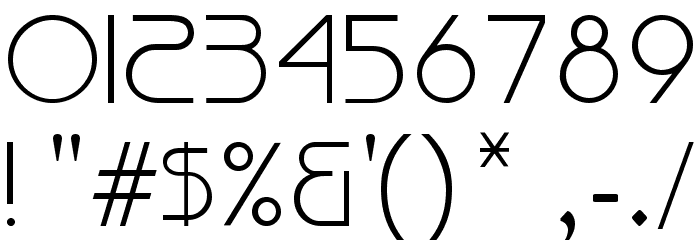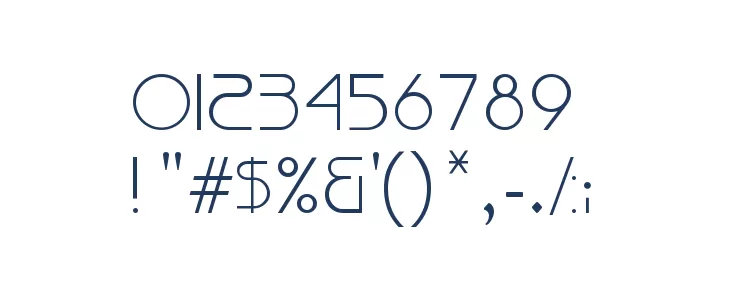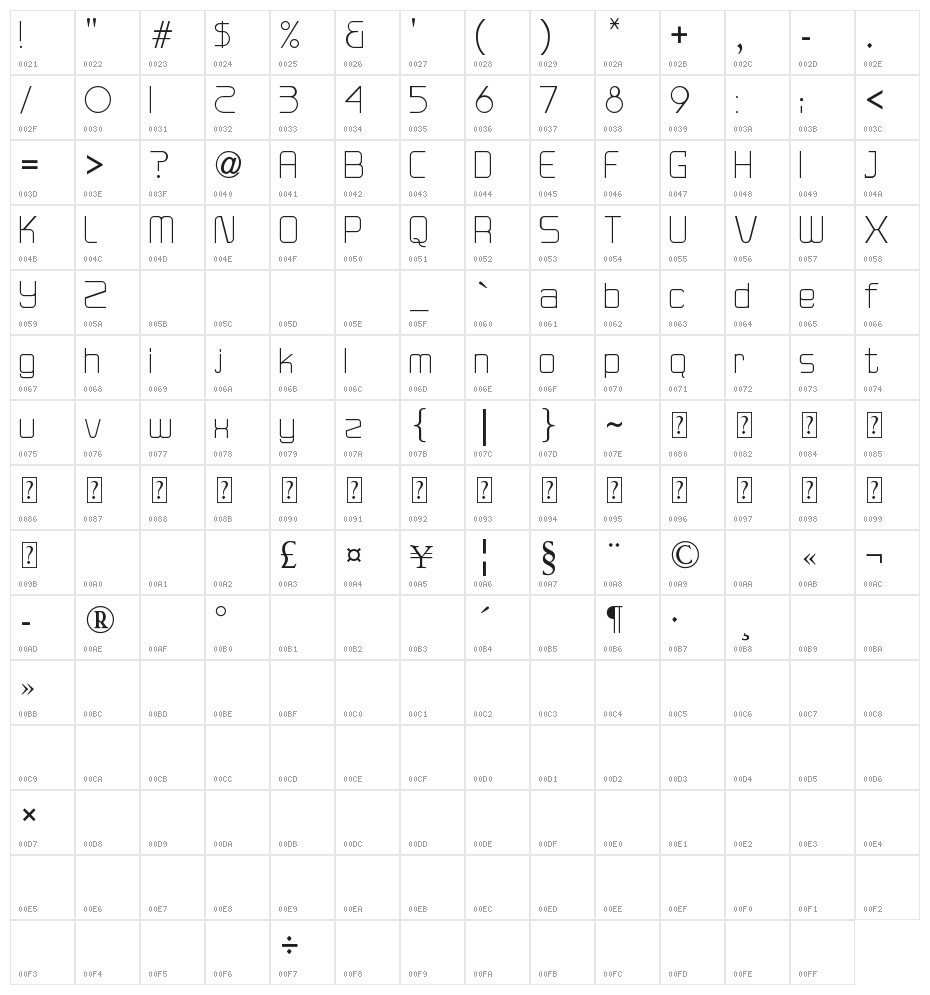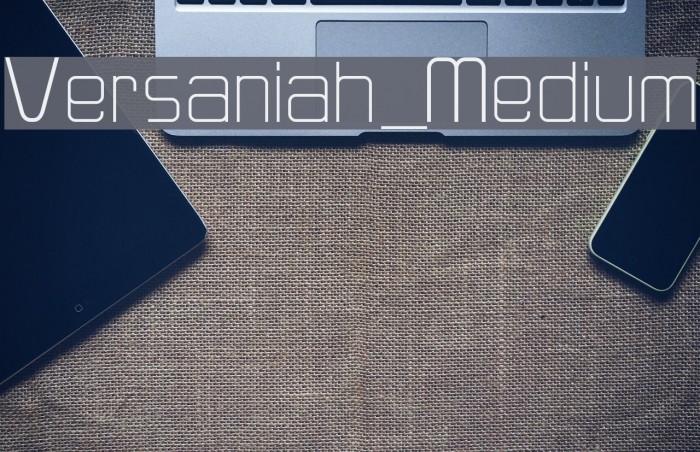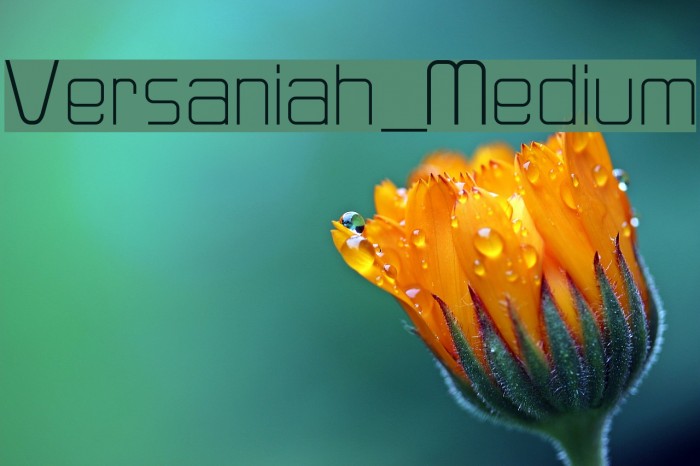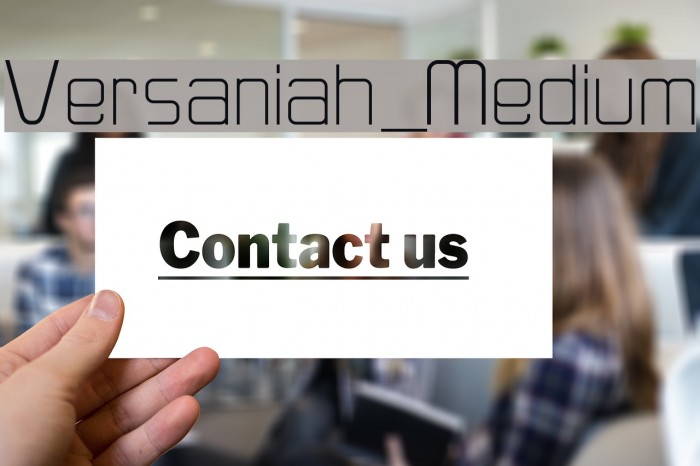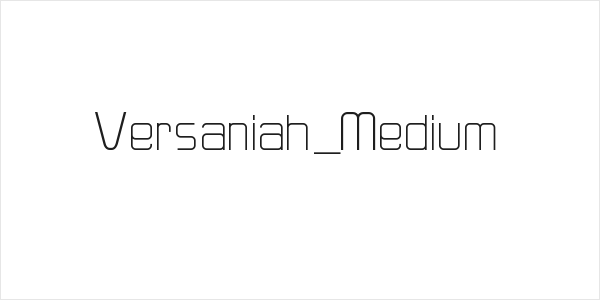
Versaniah_Medium Font
Versaniah_Medium Description
This font features a clean, geometric design with rounded edges and a modern aesthetic. The characters are uniformly structured, offering a sleek and contemporary look. The uppercase letters are tall and slightly narrow, while the lowercase letters maintain a consistent height, enhancing readability. The numerals are distinct and align well with the overall style, making them suitable for various applications. Special characters are crafted with the same attention to detail, ensuring they complement the alphabetic characters seamlessly.
Use CaseHeadlines, Logos, Digital Interfaces
Proposed ProjectsIdeal for tech branding, modern web design, digital interfaces, and minimalist posters.